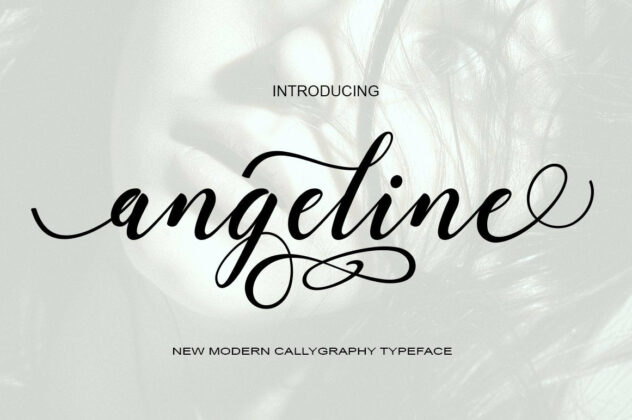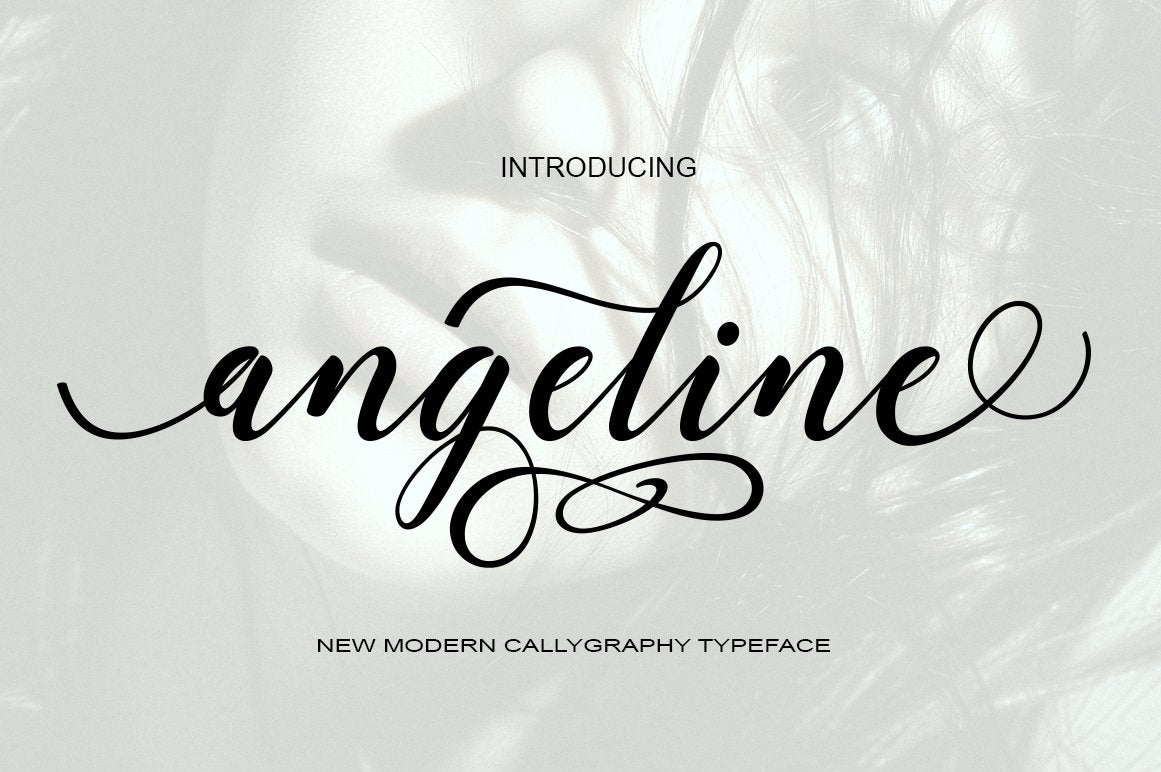
About Angeline
Angeline Script Angeline Script New fresh & modern style with handmade calligraphy, decorative characters and dancing lineage! So wonderful are invitations like greeting cards, branding material, business cards, quotes, posters, and more !! Angeline Script The comes with 538 glyphs. Alternate characters are divided into several Open Type features such as Swash, Stylistic Sets, Stylistic Alternate, Contextual Alternate. Open Type features are accessible by using Open Type savvy programs such as Adobe Illustrator, Adobe InDesign, Adobe Photoshop Corel Draw X versions, and Microsoft Word. And this font has code PUA unicode (font with special code). So that all alternative characters can be easily accessed by craftsmen or designers. Uppercase & lowercase International signature & symbol Punctuation Support & PUA number Unicode Style Style Alternative Style Style Range 1-14 Contextual Character Variations. ZIP files include the following: Angeline .OTF Angeline .TTF If you do not have programs that support OpenType features like Adobe Illustrator and CorelDraw X Versions, you can access all alternative flying machines using Font Book (Mac) or Character Map (Windows). Angeline Script Angeline Script New fresh & modern style with handmade calligraphy, decorative characters and dancing lineage! So wonderful are invitations like greeting cards, branding material, business cards, quotes, posters, and more !! Angeline Script The comes with 538 glyphs. Alternate characters are divided into several Open Type features such as Swash, Stylistic Sets, Stylistic Alternate, Contextual Alternate. Open Type features are accessible by using Open Type savvy programs such as Adobe Illustrator, Adobe InDesign, Adobe Photoshop Corel Draw X versions, and Microsoft Word. And this font has code PUA unicode (font with special code). So that all alternative characters can be easily accessed by craftsmen or designers. Uppercase & lowercase International signature & symbol Punctuation Support & PUA number Unicode Style Style Alternative Style Style Range 1-14 Contextual Character Variations. If you do not have programs that support OpenType features like Adobe Illustrator and CorelDraw X Versions, you can access all alternative flying machines using Font Book (Mac) or Character Map (Windows).